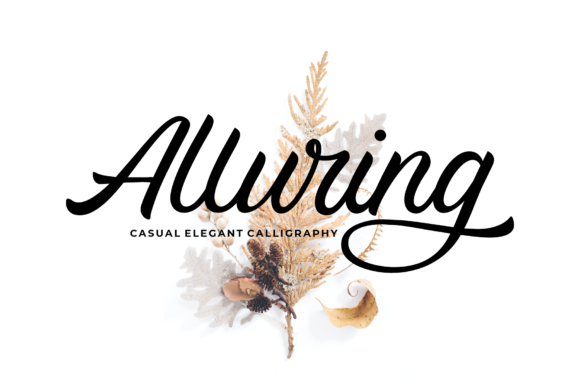
Alluring Calligraphy: A Script Font for Creative Projects
Imagine a typeface that doesn't just sit on the page but seems to pirouette across it, infusing every word with a sense of charm and motion. That's the immediate impression of Alluring Calligraphy, a lovely script font featuring charming, playful characters that seem to dance along the baseline. It’s designed to be more than just a collection of letters; it’s a tool for adding personality and a handcrafted feel to your work.
For designers and creators, selecting the right typeface is a foundational decision. A premium font like Alluring Calligraphy offers a distinct visual voice that can elevate a project from ordinary to memorable. Its flowing, modern typography style bridges the gap between elegant traditional calligraphy and a cleaner, more contemporary aesthetic, making it a versatile addition to any designer's toolkit of creative fonts and design assets.
Where This Creative Font Shines
The true value of a display font is measured by its application. Alluring Calligraphy excels in projects where emotion, elegance, and a personal touch are paramount. Consider its use for:
- Brand Identity & Logo Design: It can form the heart of a boutique brand, a wedding planner's logo, or a cosmetic line, instantly conveying sophistication and care.
- Editorial & Packaging Design: Use it for mastheads, pull quotes, or product names on artisanal goods. It adds a layer of texture and authenticity that sans serif fonts often can't.
- Invitations & Event Stationery: From digital invitations to printed menus and signage, its handwritten font quality sets a celebratory, intimate tone.
- Digital Presence: Apply it thoughtfully to website headers, social media graphics, or poster designs to grab attention and create a cohesive, stylish look.
This script font isn't just for large headlines. Its carefully crafted letterforms can also work for shorter text blocks in editorial layouts or on merchandise, provided the context calls for its distinctive style.
Tips for Selecting and Using Your Font
Integrating any new typeface into your workflow requires a bit of strategy. To make the most of Alluring Calligraphy, start by testing its readability at the sizes you intend to use. While it’s stunning for display purposes, ensure it remains clear in your specific application.
Next, consider font pairing. A playful script font often benefits from the contrast of a simple, clean serif font or a geometric sans serif font for body text. This pairing creates a visual hierarchy that guides the viewer's eye and maintains professionalism. Explore the available styles within the font family—does it include alternates, ligatures, or multiple weights? These features are key to unlocking its full design flexibility.
Choosing a typeface is an investment in your project's visual story. A well-designed font like Alluring Calligraphy does more than display words; it builds atmosphere, supports brand recognition, and contributes to a polished, professional presentation. When your typography aligns perfectly with your creative vision, the entire design feels more cohesive and intentional, leaving a lasting impression on your audience.